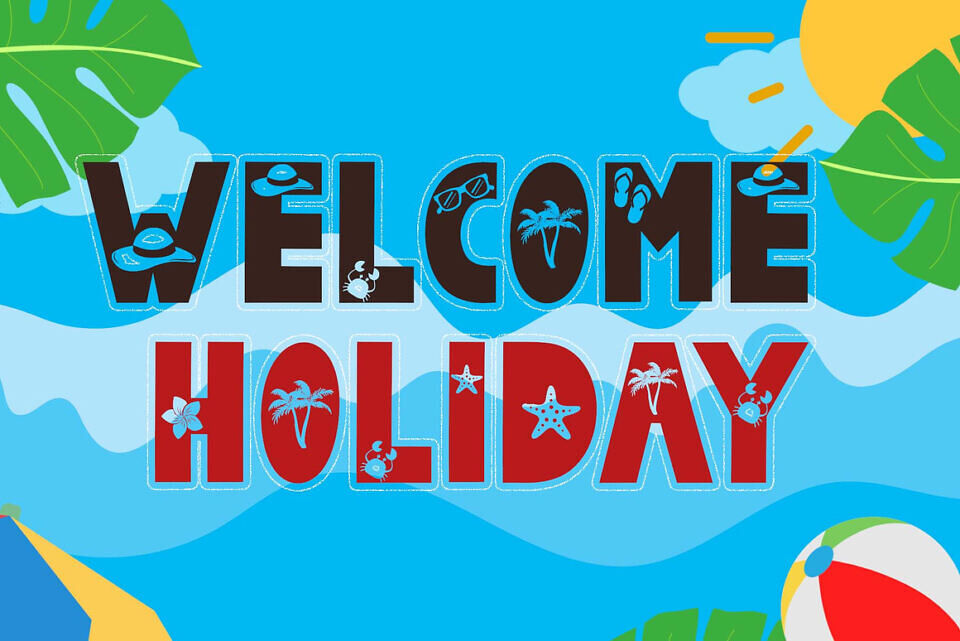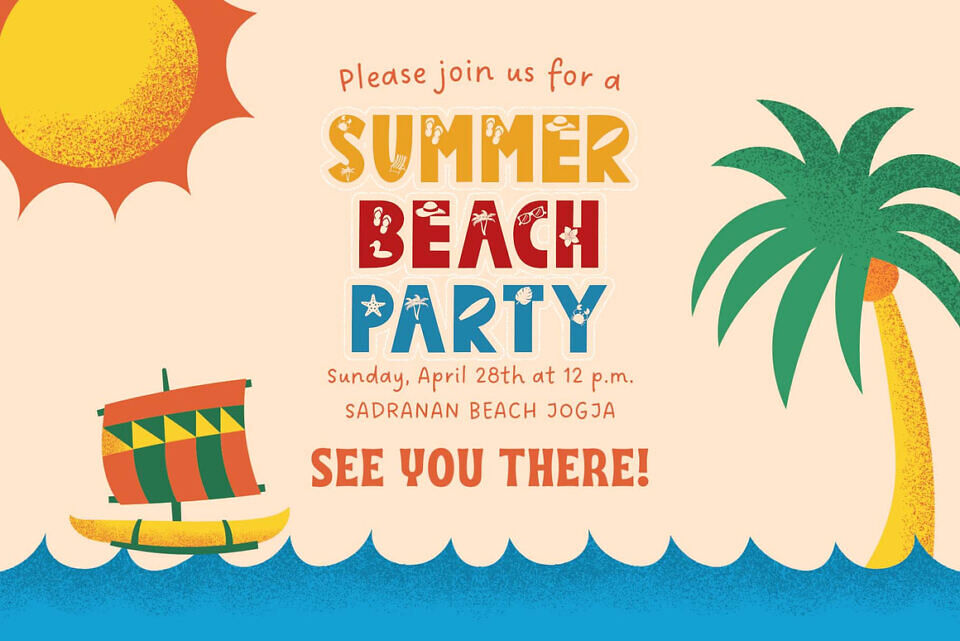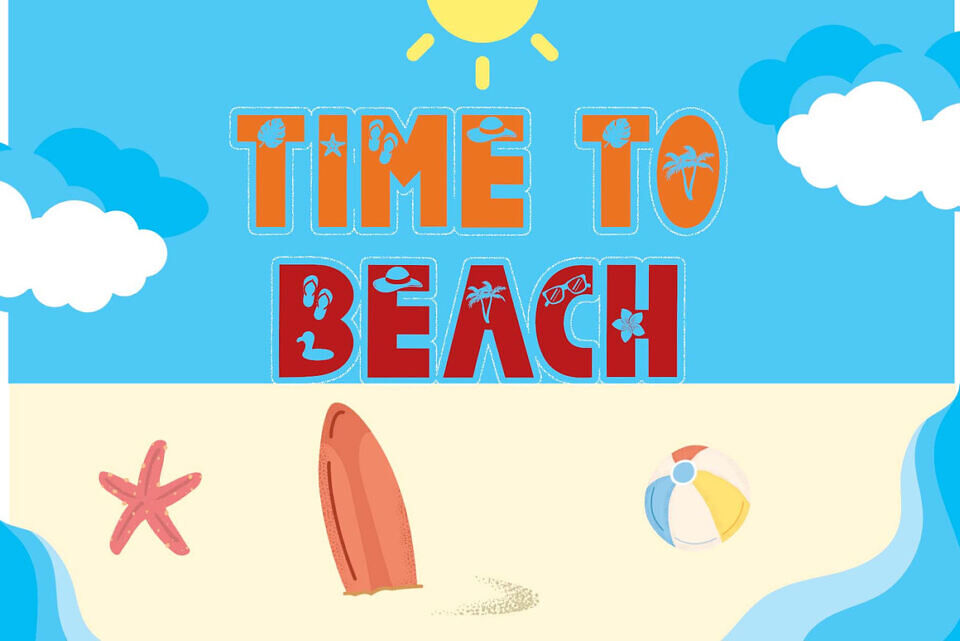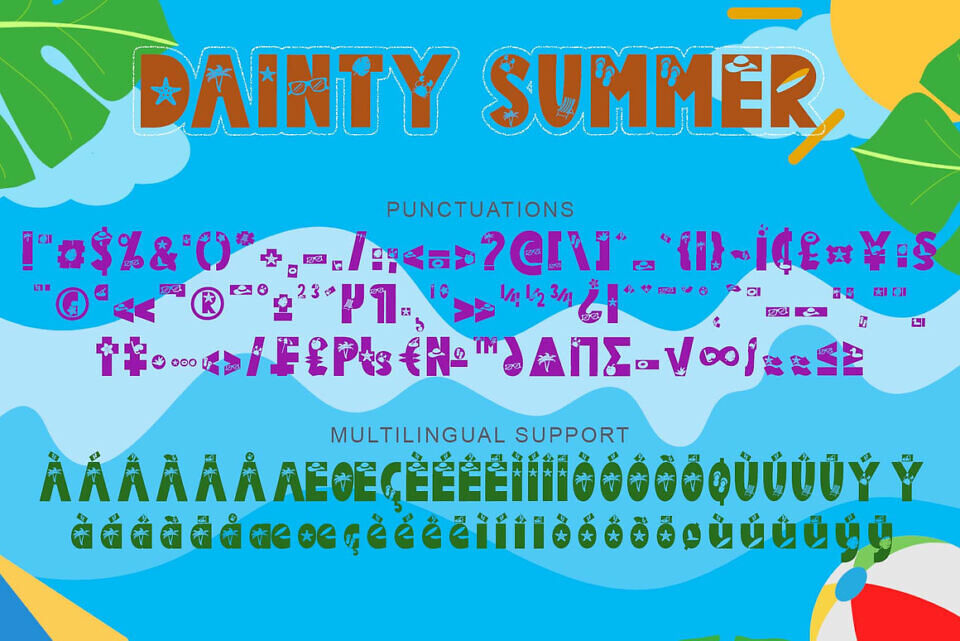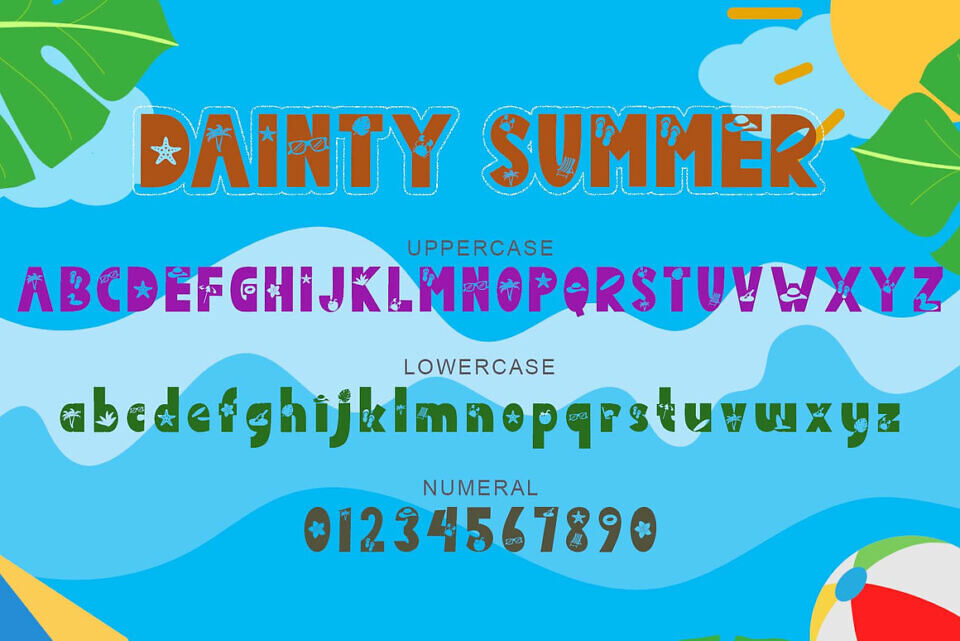
Dainty Summer Font
Dainty Summer is a unique and cute display font. This font is varied with summer-related shapes. Equipped with uppercase, lowercase, numbers, punctuation, and multilingual support. Perfect for use in summer, spring, vacation, holiday, camping, etc.